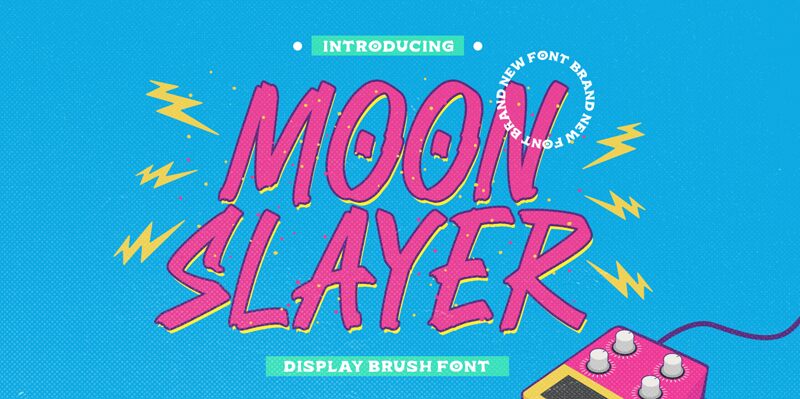
Moon Slayer is a stunning semi-light brush font by the talented designers at Letterhend Studio. The condensed width of this font gives it a sleek and modern feel, perfect for projects that require an edgy touch. With its bold strokes and unique letterforms, Moon Slayer is ideal for designs that need to stand out from the crowd. From t-shirt designs to social media graphics, this font will make any project pop. Use Moon Slayer to add personality and flair to your next project, whether it's a logo, poster, or website design. Get creative and let Moon Slayer unleash your inner rebel!